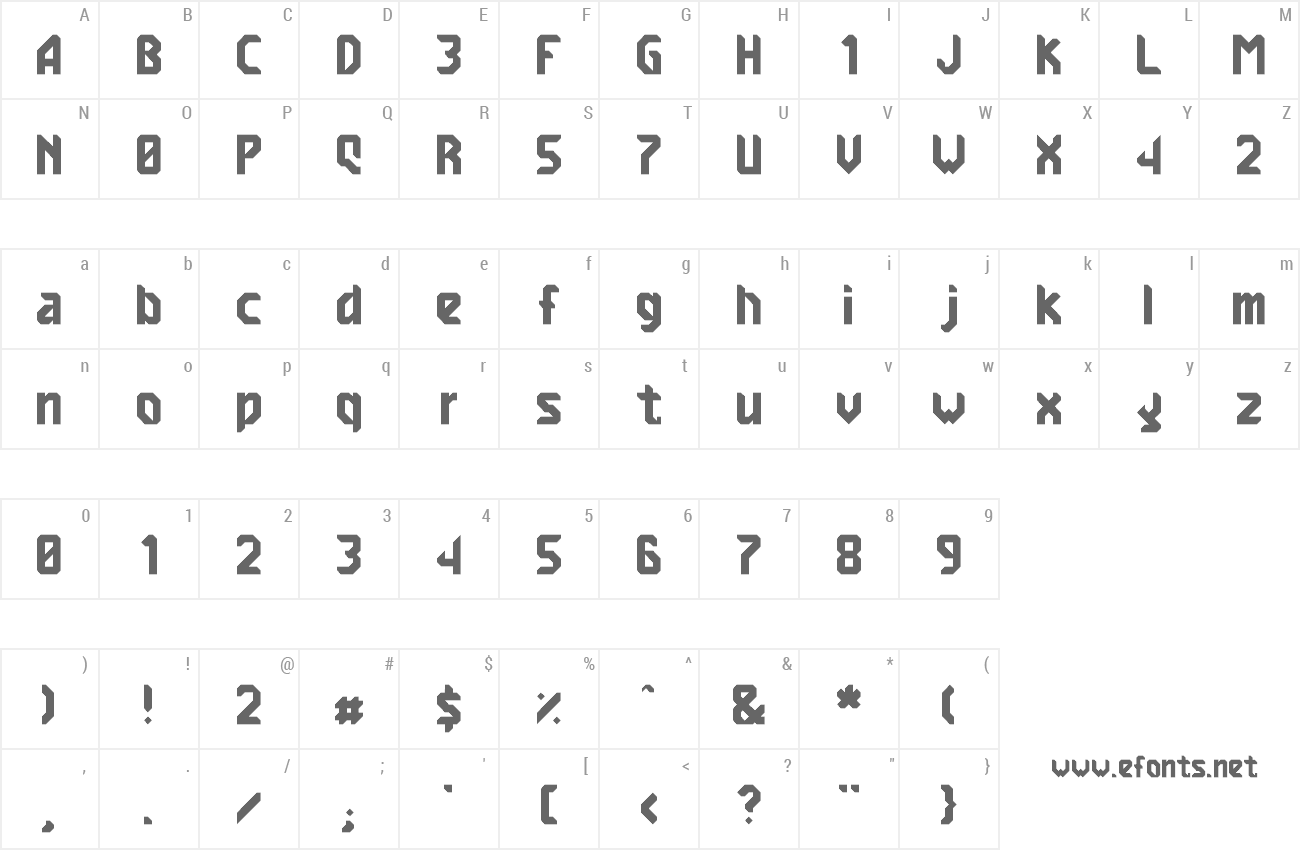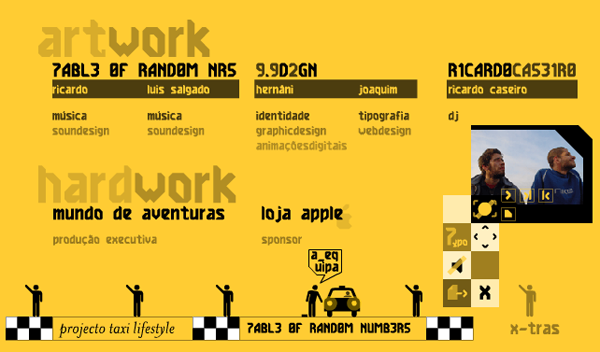
| Font name: | 7ABL3 |
| Author: | Joakin |
| Note by Joakin | |
| esta foi a peimeira font e fiz para a banda "Table Of Random Numbers" em 99 ou 2000 |